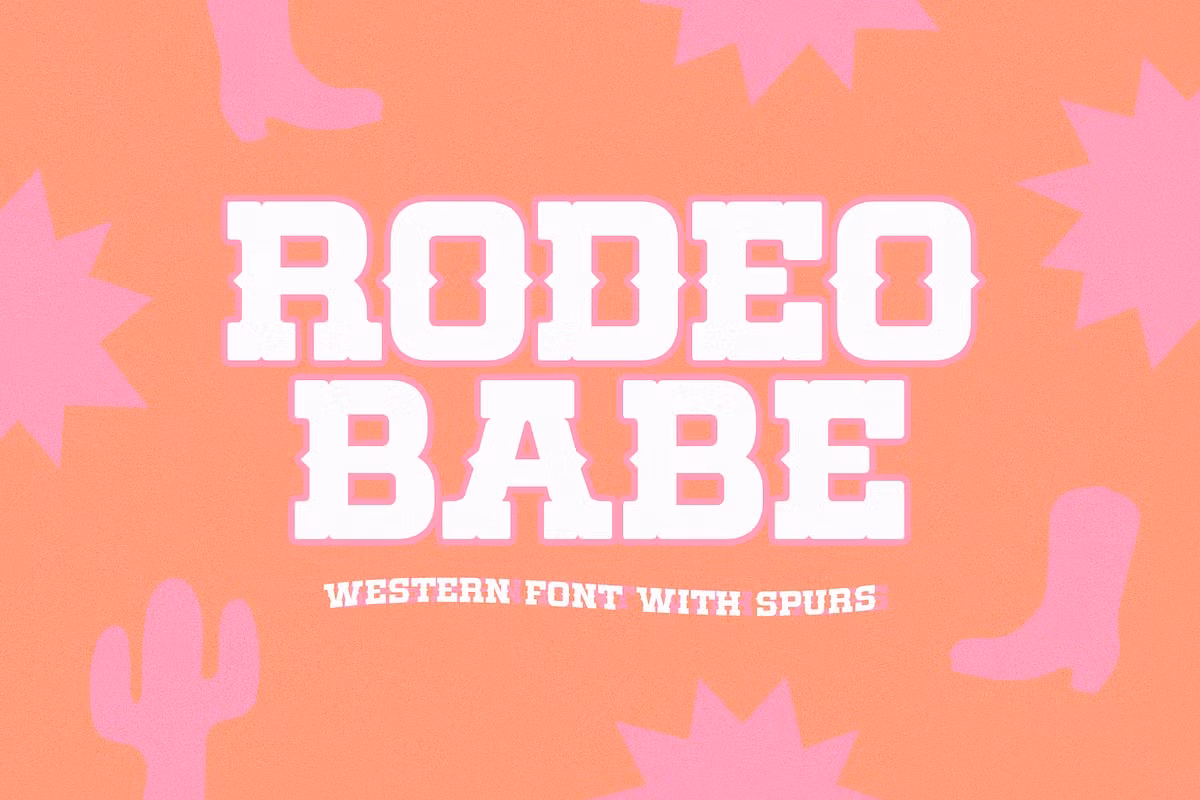
Rodeo Babe | Western Spur Font Free Download
Rodeo Babe | Western Spur Font Free Download is a bold and stylish typeface inspired by classic Western typography. Featuring rugged letterforms, sharp edges, and vintage flair, this font is perfect for creating branding, logos, posters, and designs with a retro or cowboy aesthetic.
The font’s distressed texture and strong presence make it ideal for projects that evoke the spirit of the Wild West, such as ranch logos, bar signage, or country-themed designs. Whether you’re designing for a western-themed event, product, or brand, Rodeo Babe brings a strong, nostalgic feel to your typography.